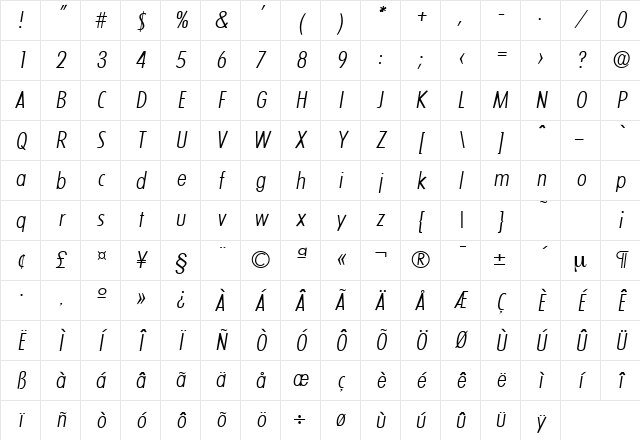
LimerickCond-Serial-Light RegularItalic
Design Context for LimerickCond-Serial-Light
LimerickCond-Serial-Light is a composed and adaptable typeface that performs quietly and consistently across a wide range of design contexts. The slanted form adds forward momentum and visual energy. Its slender proportions lend an understated elegance to any composition. Its narrow stance lets it pack a punch even in space-constrained designs.
Pro Tip: Use LimerickCond-Serial-Light for emphasis, pull quotes, and subheadings where its slanted energy can add rhythm to the layout.